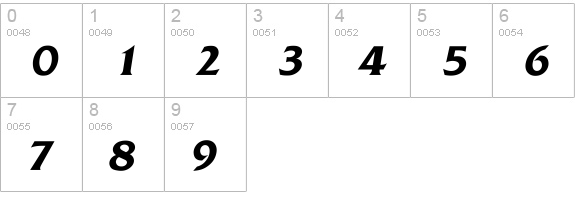
Iquadrat DemiBold Font Details
Iquadrat DemiBold is a sub-bold, structured variant in the Iquadrat typeface family \xE2\x80\x94 well suited to sub-headlines and emphasised passages.
Iquadrat DemiBold font is a stunning display typeface that exudes strength and elegance. With its bold and commanding presence, this font is perfect for adding a touch of sophistication to any design project. The Iquadrat DemiBold font features sleek and modern letterforms that are carefully crafted to catch the eye. Its clean lines and balanced proportions give it a timeless appeal that is both versatile and impactful. This font is ideal for a wide range of applications, including logo design, headlines, posters, packaging, and branding materials. Its boldness and clarity ensure that your message will be easily conveyed, making a lasting impression on your audience. One of the most remarkable features of Iquadrat DemiBold font is that it is freely available to download at FontsMarket.com. This means that you can access this remarkable typeface without any cost, allowing you to elevate your designs without breaking the bank. Whether you're a professional designer or a casual enthusiast, the Iquadrat DemiBold font is a must-have in your font library. Its versatility, elegance, and the fact that it is free to download make it an invaluable resource for all your design projects. So why wait? Head over to FontsMarket.com and get your hands on this remarkable font today!